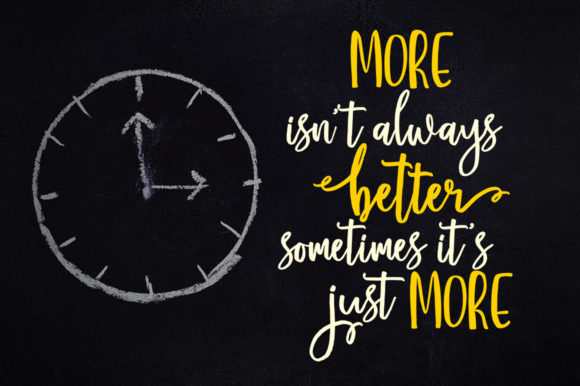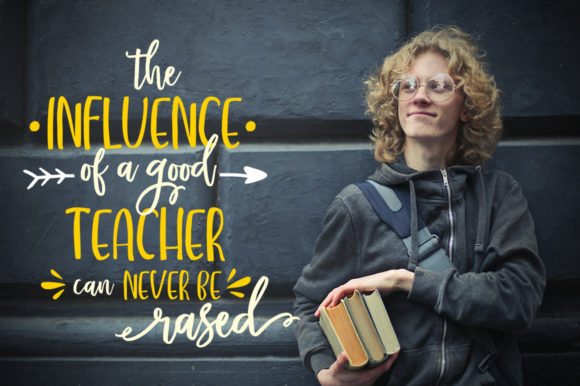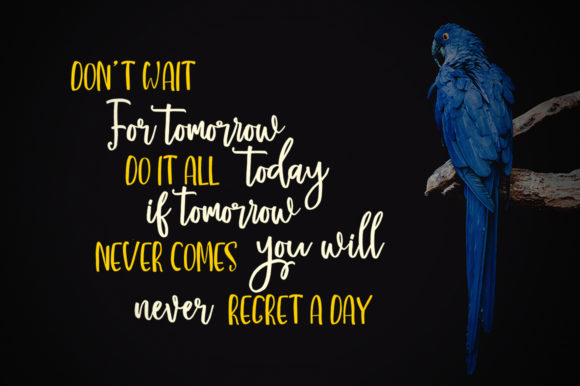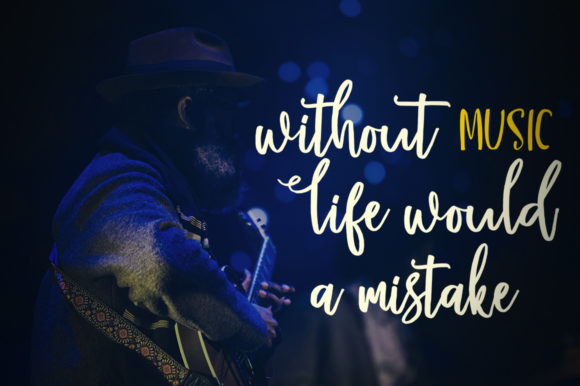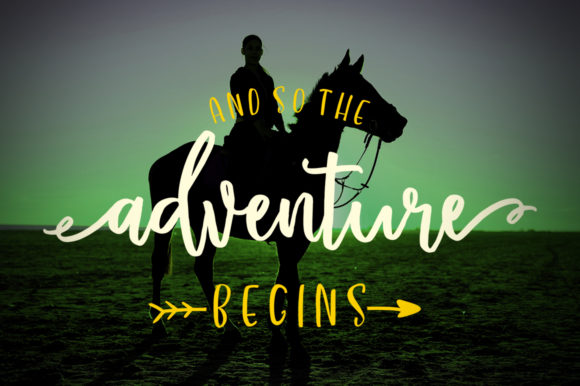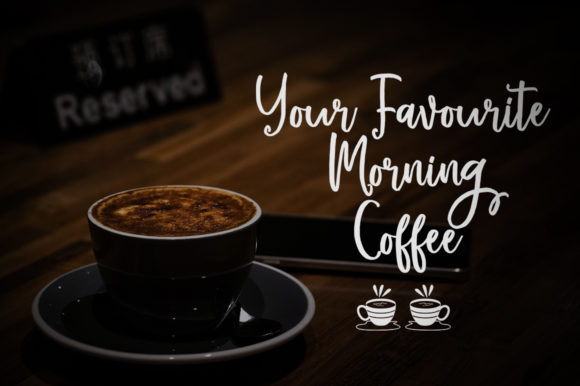
Western Duo Font
About Western Duo Font
Western Duo is a match made in heaven, the brushed style characters perfectly complements the sans serif’s style. Combining these two fonts on your next design will give a spectacular and friendly feel. This versatility means that this font can be used in a wide variety of applications from logos, to greeting cards – the only limit is your imagination!